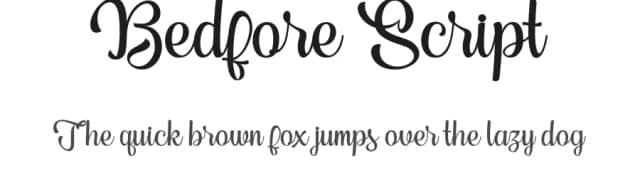
Bedfore Script by Lettersams is a romantic vintage-style script distinguished by its substantial weight and authentic handcrafted character. The typeface blends time-worn elegance with accessible versatility, functioning beautifully across both formal occasions and creative projects where personal, human warmth matters. Its generous letterforms and natural flow create immediate visual interest while maintaining excellent readability, a balance not all decorative scripts achieve.
This script excels in wedding invitation suites where couples want refined yet distinctive stationery, cosmetic and skincare product labels seeking upscale brand positioning, and event materials like save-the-date cards and celebration menus. The typeface brings particular strength to logo design where businesses need handcrafted aesthetics without sacrificing recognition. Beyond invitations, Bedfore Script shines for boutique retail signage, personalized gift packaging, and monogram applications that demand character and polish.
Designers frequently pair Bedfore Script with elegant layouts, vintage-inspired compositions, and clean backgrounds that let the letterforms breathe. Its consistent, deliberate strokes perform reliably across both digital displays and printed collateral, from high-end stationery to packaging. This weight makes the typeface equally effective at smaller sizes, where it reads with clarity, and larger applications, where it maintains its refined character without becoming overbearing.
Bedfore Script Font is a script font that shines as a display or heading face. Pair it with a clean sans-serif or serif font for body text β the contrast creates a clear hierarchy while the two styles stay balanced and easy to read.